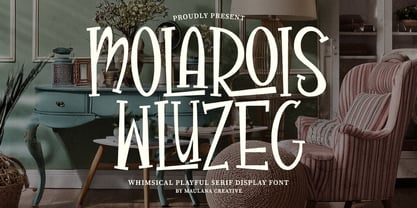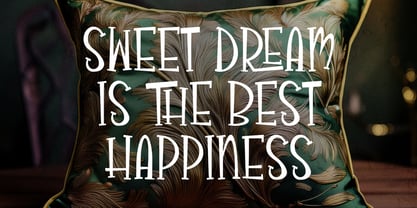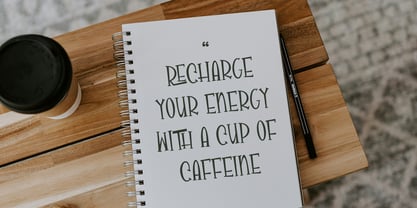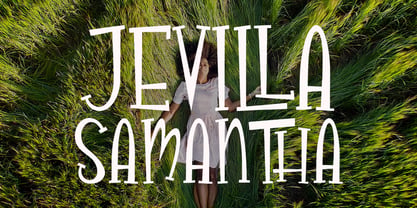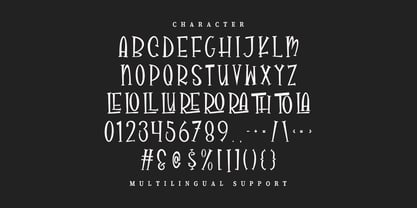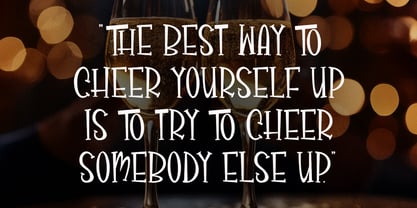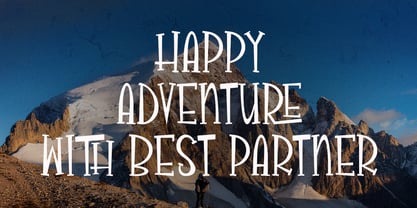
MC Molarois Wluzeg
by Maulana Creative
The MC Molarois Wluzeg Font Family was designed by Gilang Maulana and published by Maulana Creative. MC Molarois Wluzeg contains 1 styles. More about this family
Molarois Wluzeg is a charmingly eccentric serif display font that captures a sense of wonder and creative freedom. Characterized by its irregular heights, unique ligatures, and hand-drawn feel, this typeface is designed to add a touch of "organized chaos" to your designs. Whether you are working on children's book covers, quirky home decor branding, or inspirational social media quotes, Molarois Wluzeg provides an authentic, artisanal aesthetic that stands out. It includes multilingual support and special character alternates to give your typography a truly bespoke look.
Designers: Gilang Maulana
Foundry: Maulana Creative